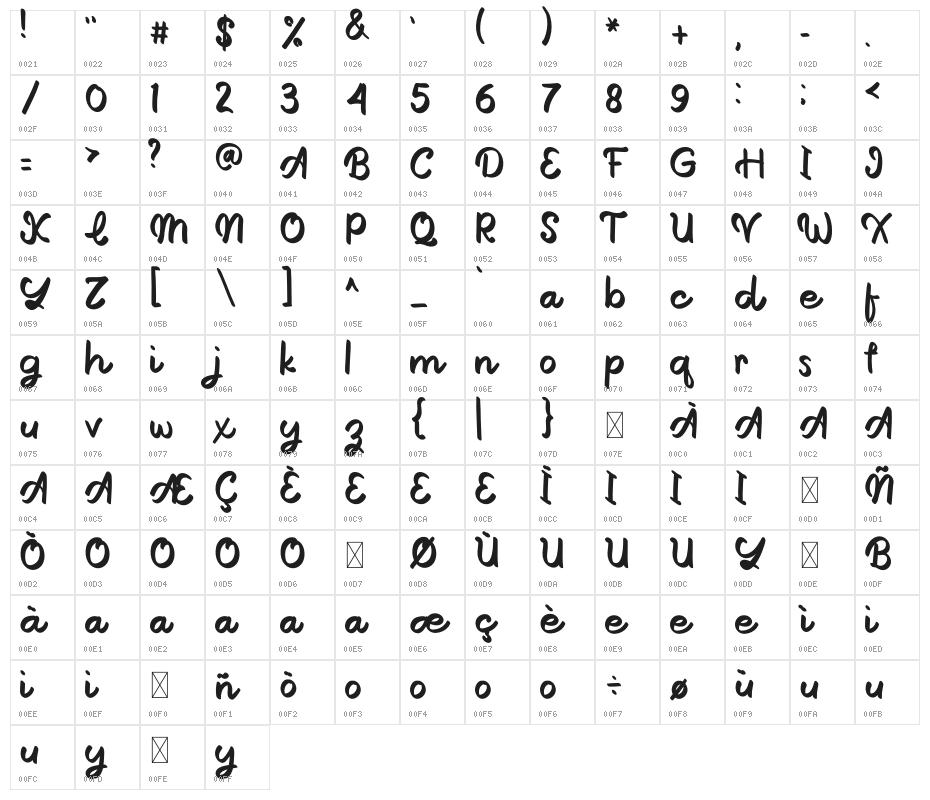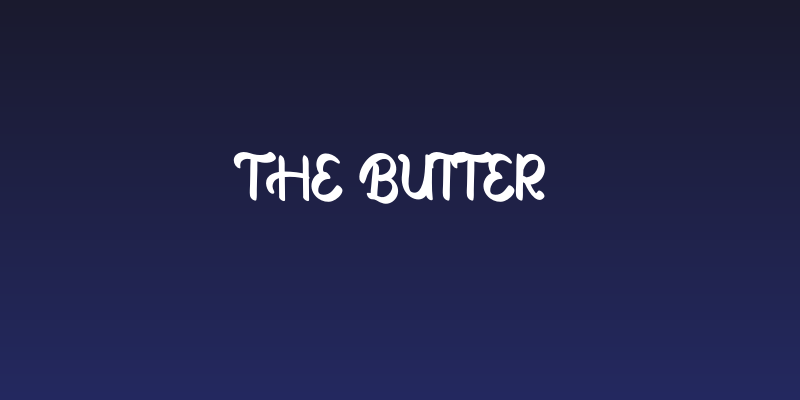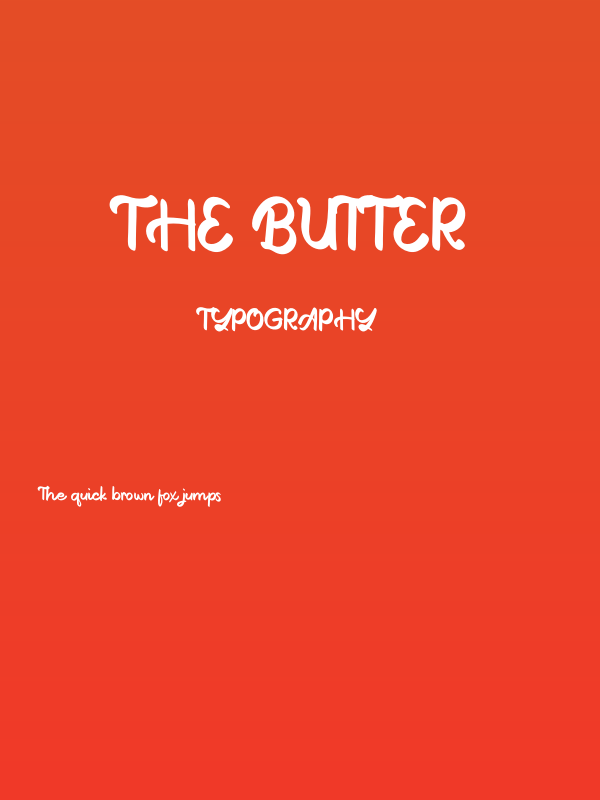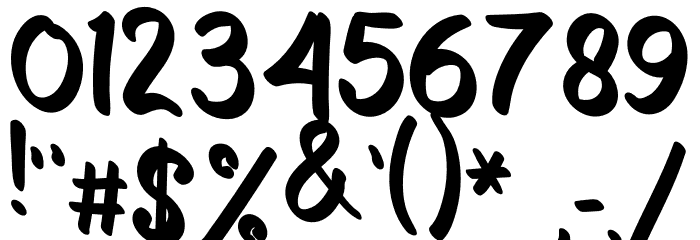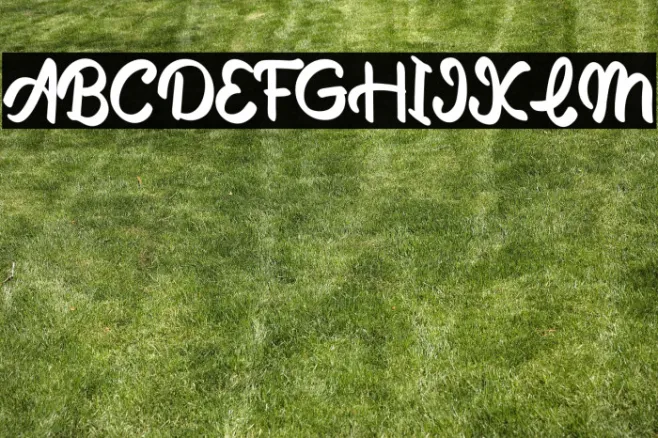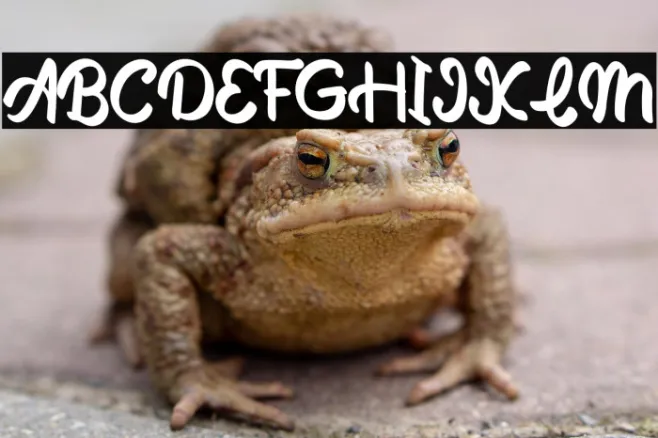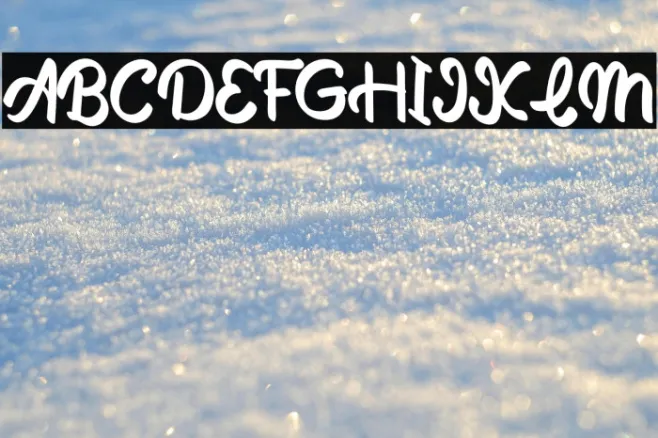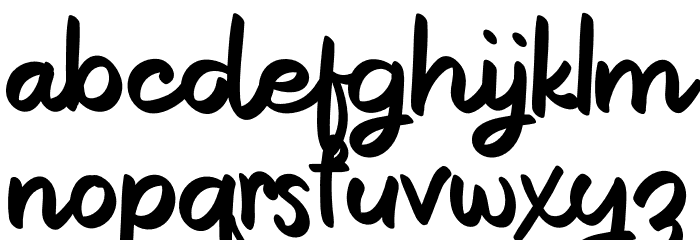
The Butter Font
The Butter Description
This font features a playful and bold script style with a handwritten appearance. The letters are interconnected, creating a flowing and dynamic look. The uppercase characters maintain a consistent height, while the lowercase letters exhibit a slight slant, adding to the casual and friendly feel. The numerals are rounded and maintain the same playful style as the letters. Special characters are well-integrated, matching the overall aesthetic. The strokes are thick and uniform, contributing to the font's bold presence.